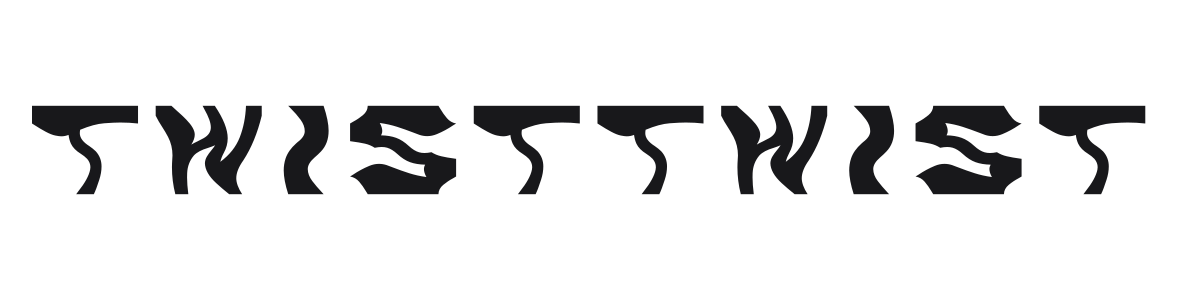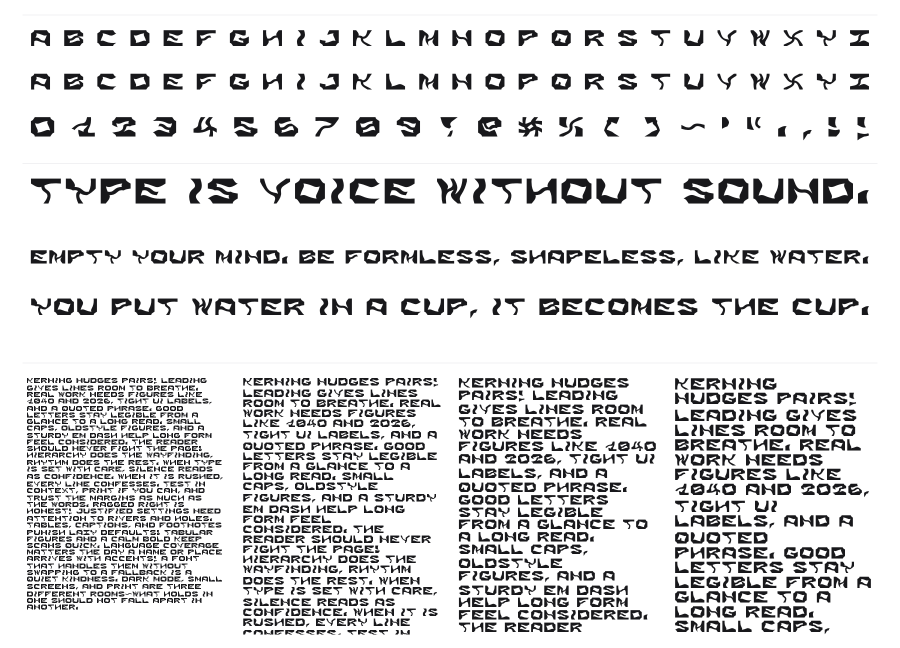
TwistTwist
TwistTwist is a heavily distorted display font where every character looks like it has been physically twisted and warped out of shape. The thick, near-monoweight strokes bulge and undulate in unexpected directions, creating a dense, chaotic energy across any line of text. It suits contexts where normal type would feel too tame.